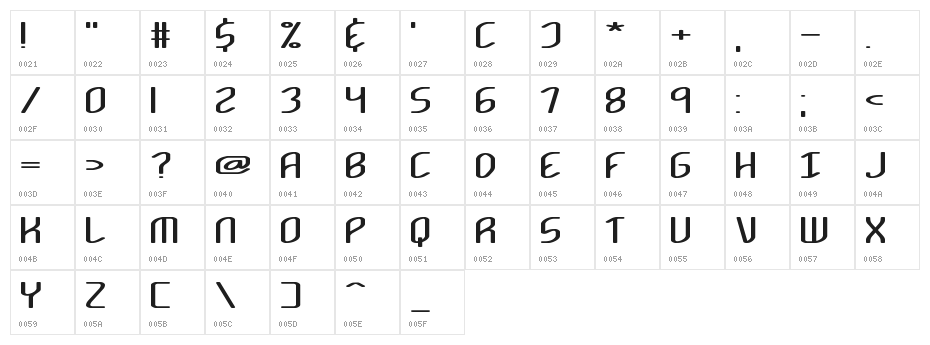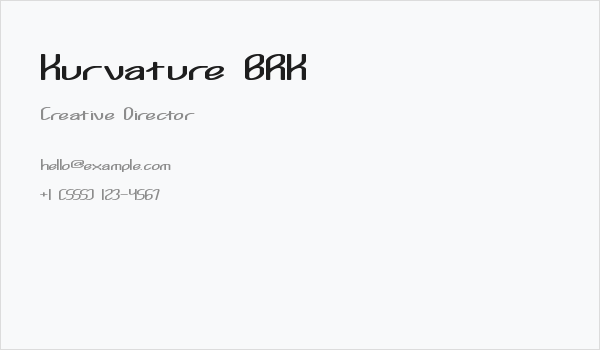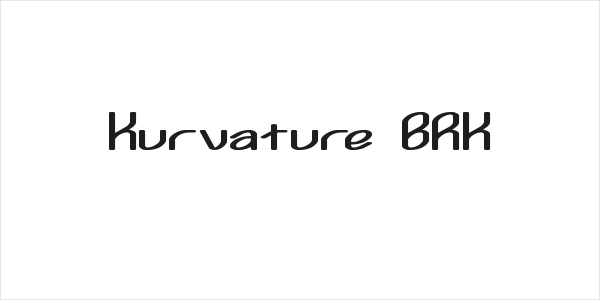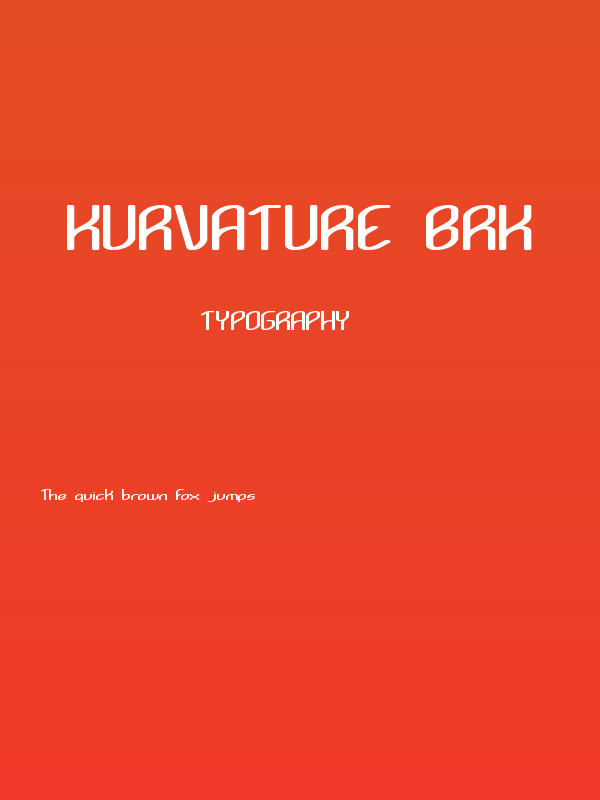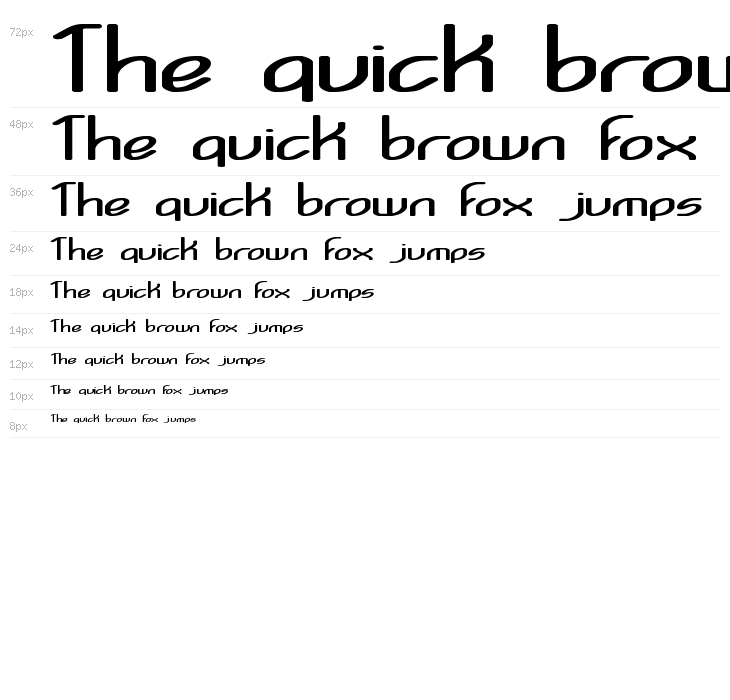
Kurvature BRK Font
Kurvature BRK Description
This font features a unique, rounded style with a modern twist. The characters are smooth and slightly elongated, giving a sense of fluidity and motion. The uppercase letters have a consistent height, while the lowercase letters maintain a balanced proportion, enhancing readability. Numbers and special characters follow the same design principles, ensuring a cohesive look across all text. The font's distinct curves and clean lines make it stand out, offering a contemporary yet approachable feel.
KURVATURE-BRK UPPERCASE
KURVATURE-BRK LOWERCASE
KURVATURE-BRK OTHER CHARS
| Use Case | Headlines, Logos, Digital content |
| Proposed Projects | Ideal for branding, advertising, and digital content that requires a modern and approachable aesthetic. |